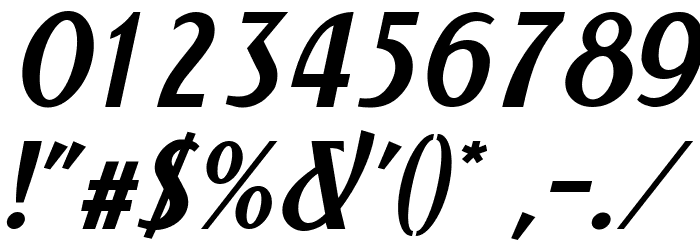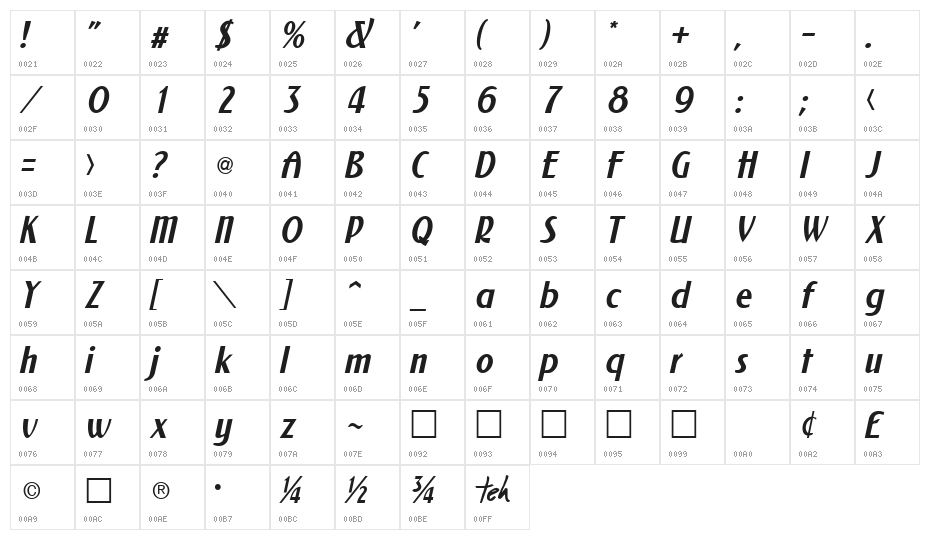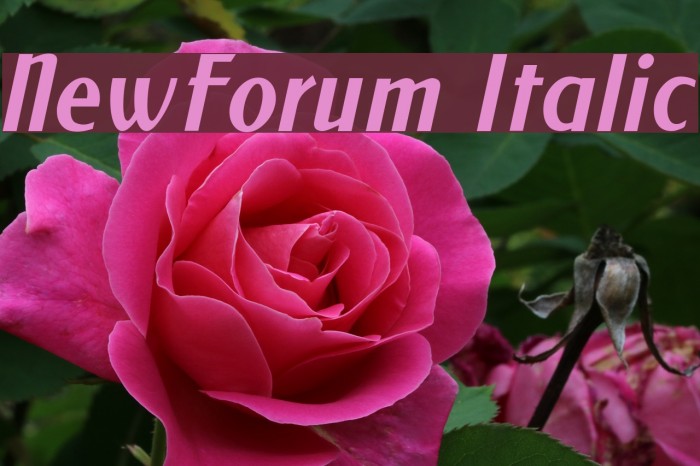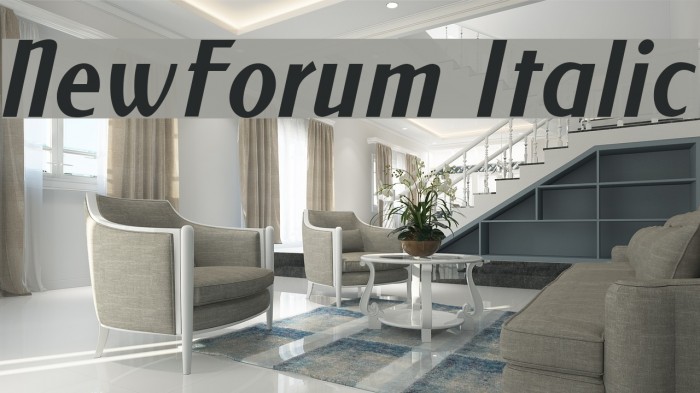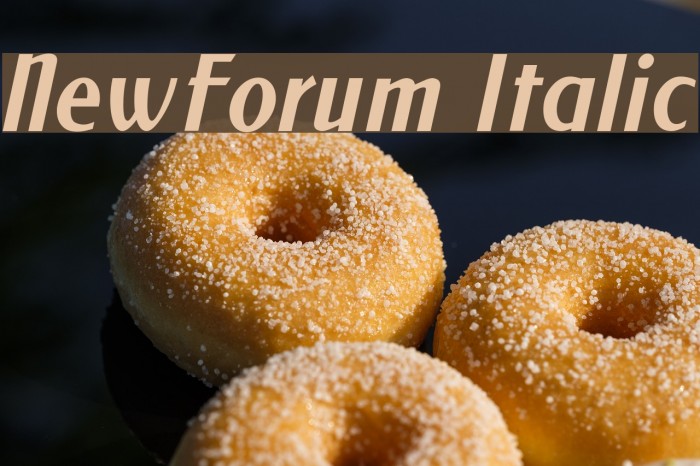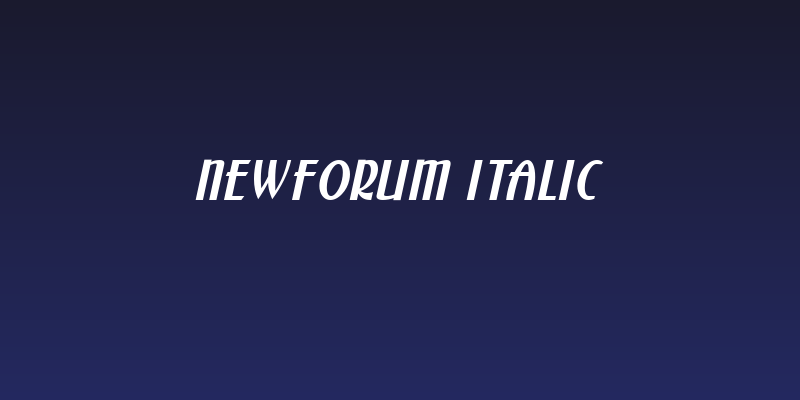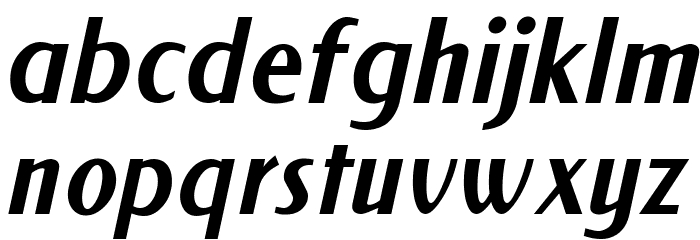
NewForum Italic Font
NewForum Italic Description
This font features a dynamic and elegant italic style, characterized by its smooth, flowing curves and slightly condensed letterforms. The strokes are moderately thick, providing a balanced contrast that enhances readability while maintaining a stylish appearance. The uppercase letters exhibit a slight slant, adding a sense of motion and sophistication. The lowercase letters follow suit with a consistent italic angle, creating a harmonious and cohesive look. The numerals are clear and distinct, matching the overall aesthetic. Special characters are well-integrated, ensuring versatility in various design contexts.